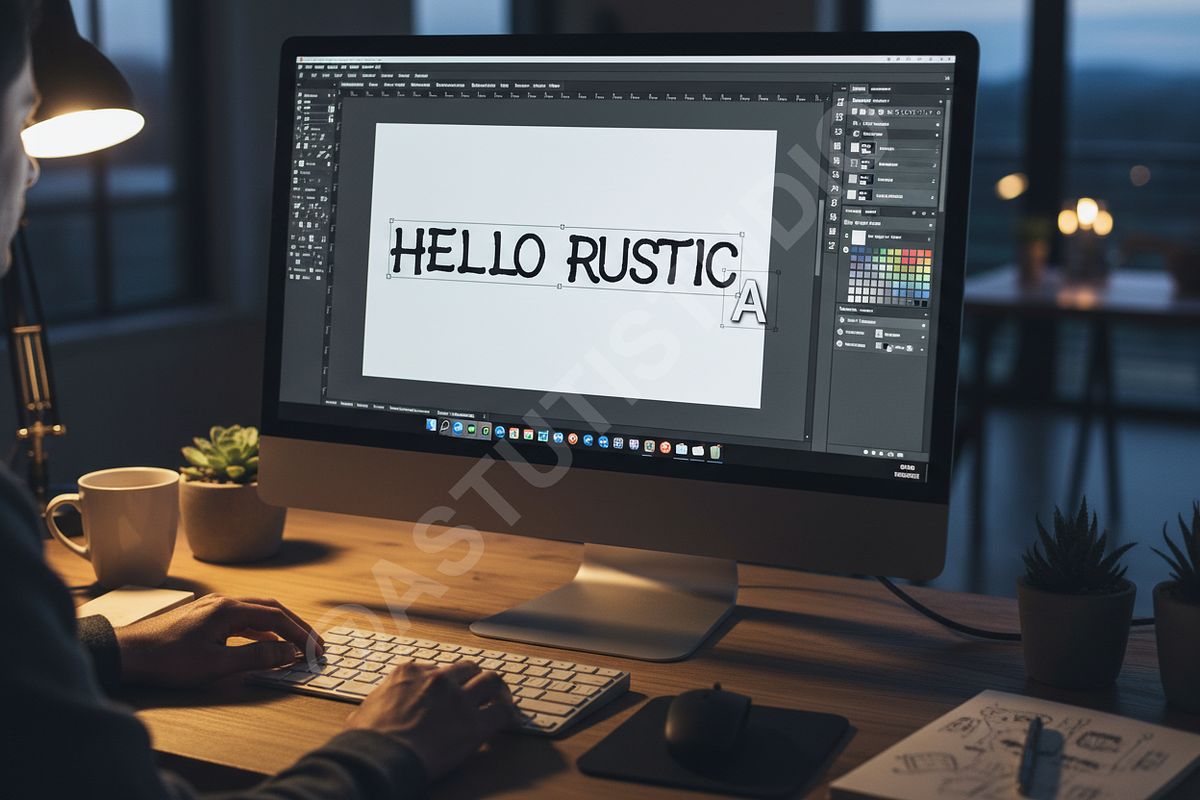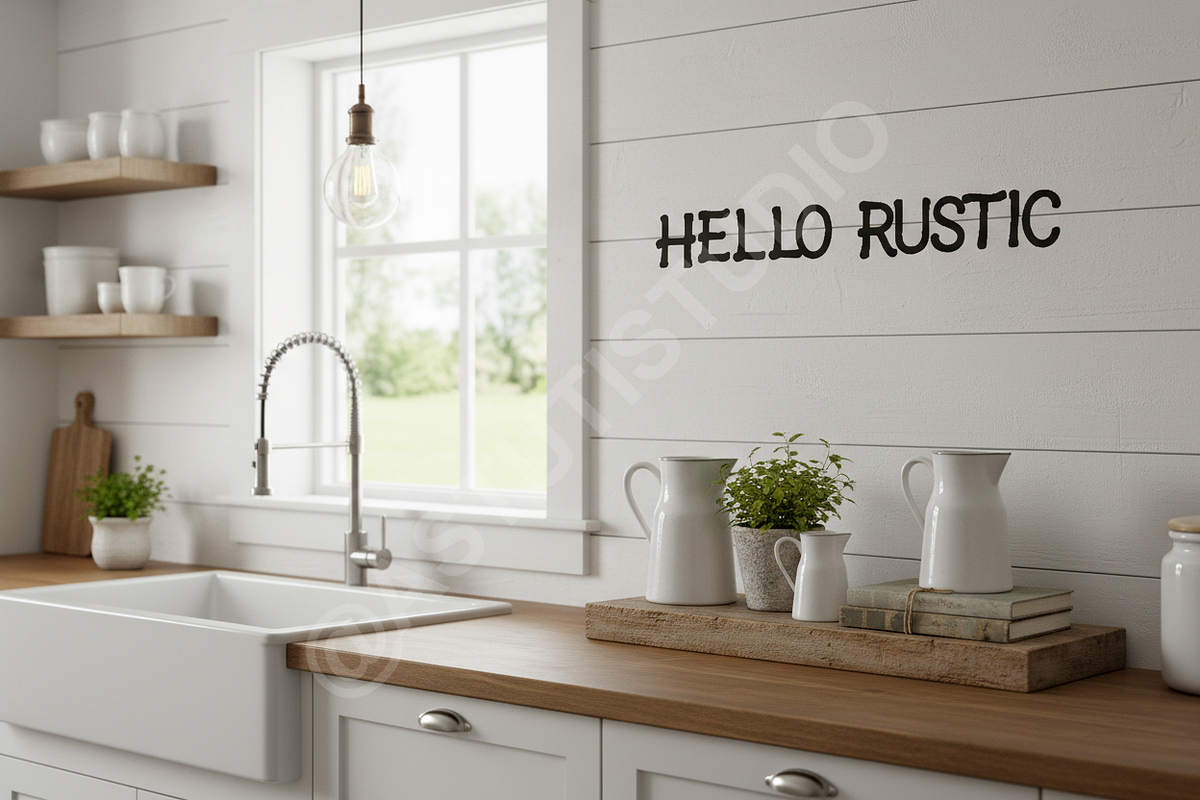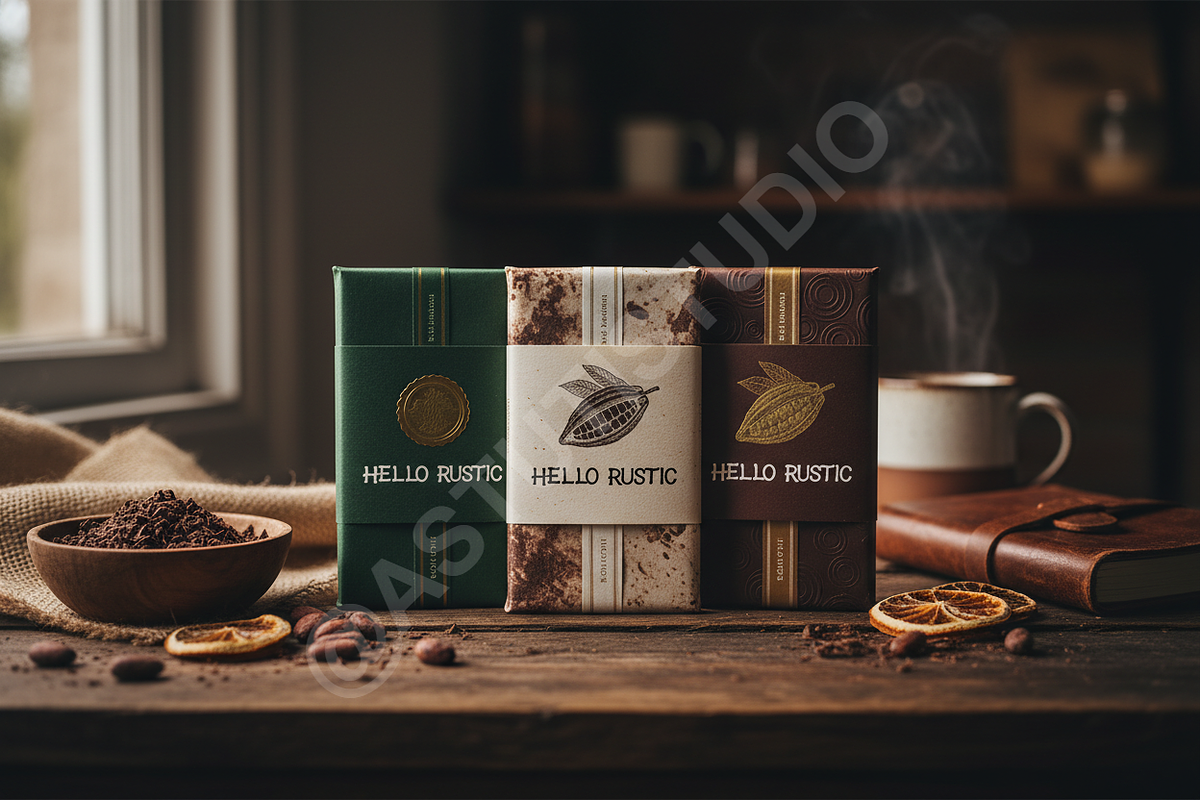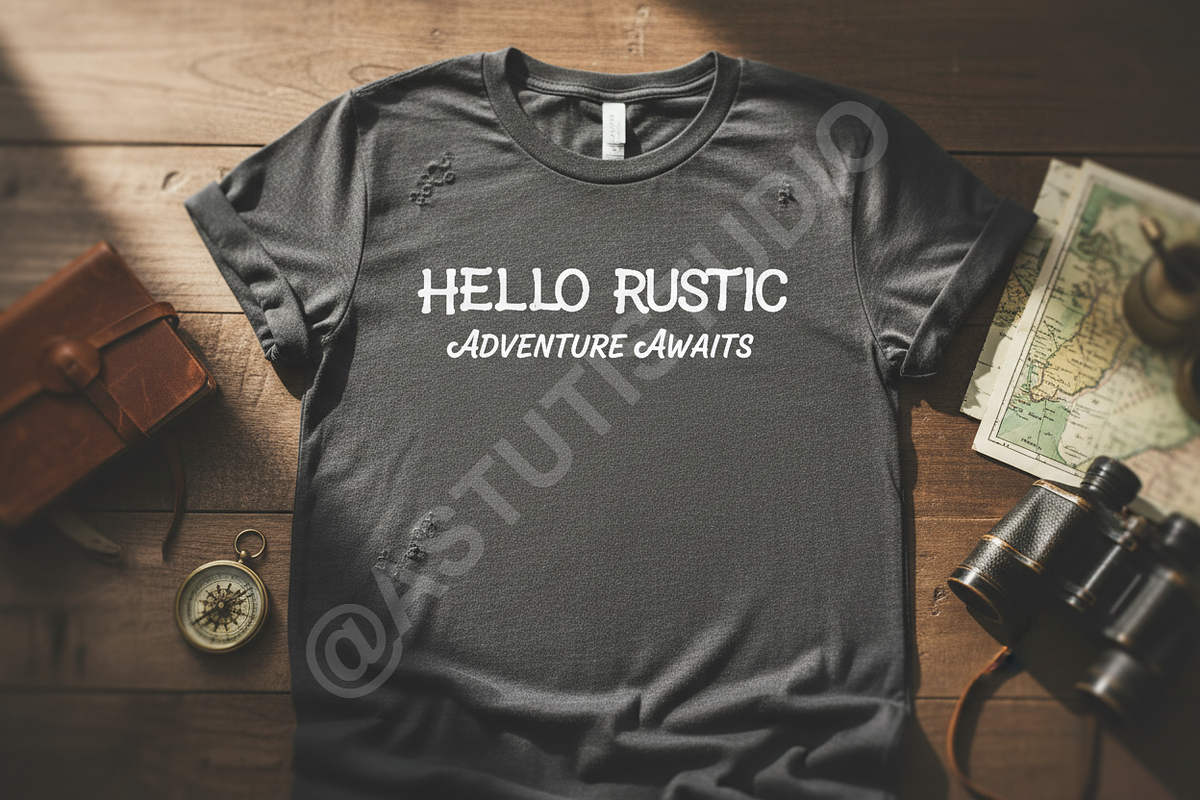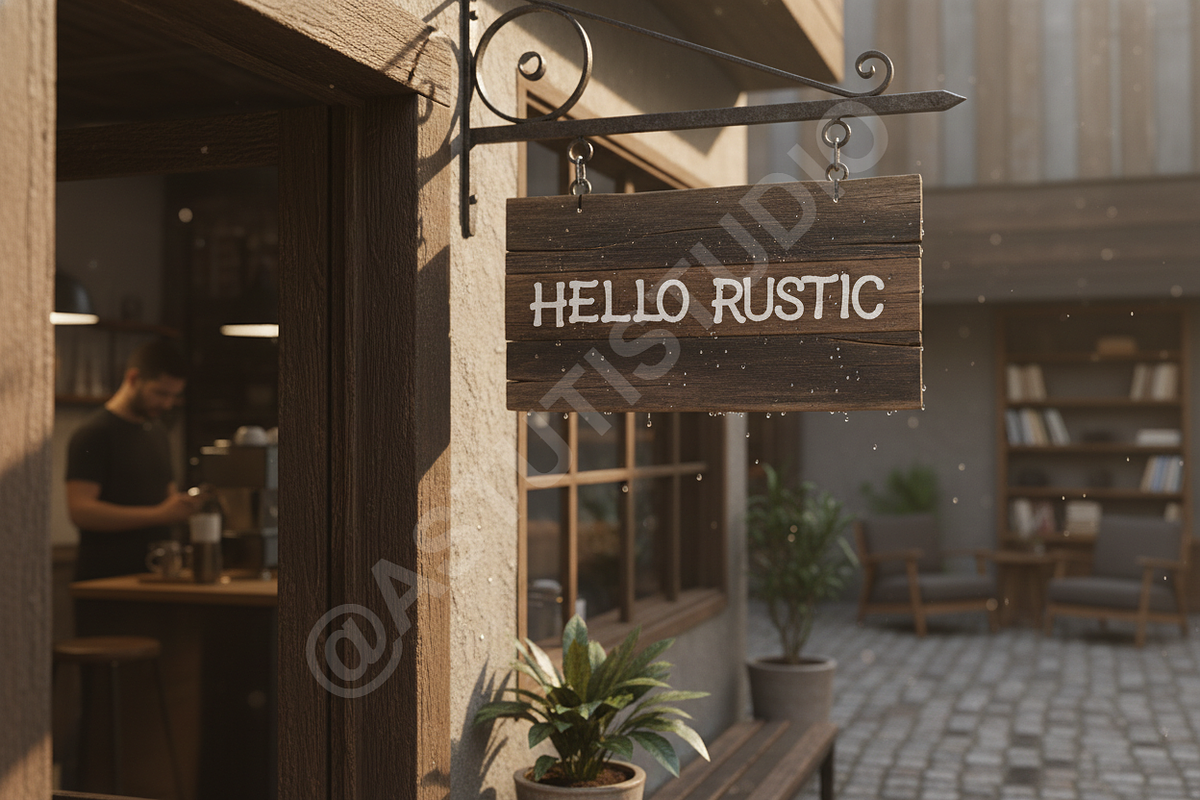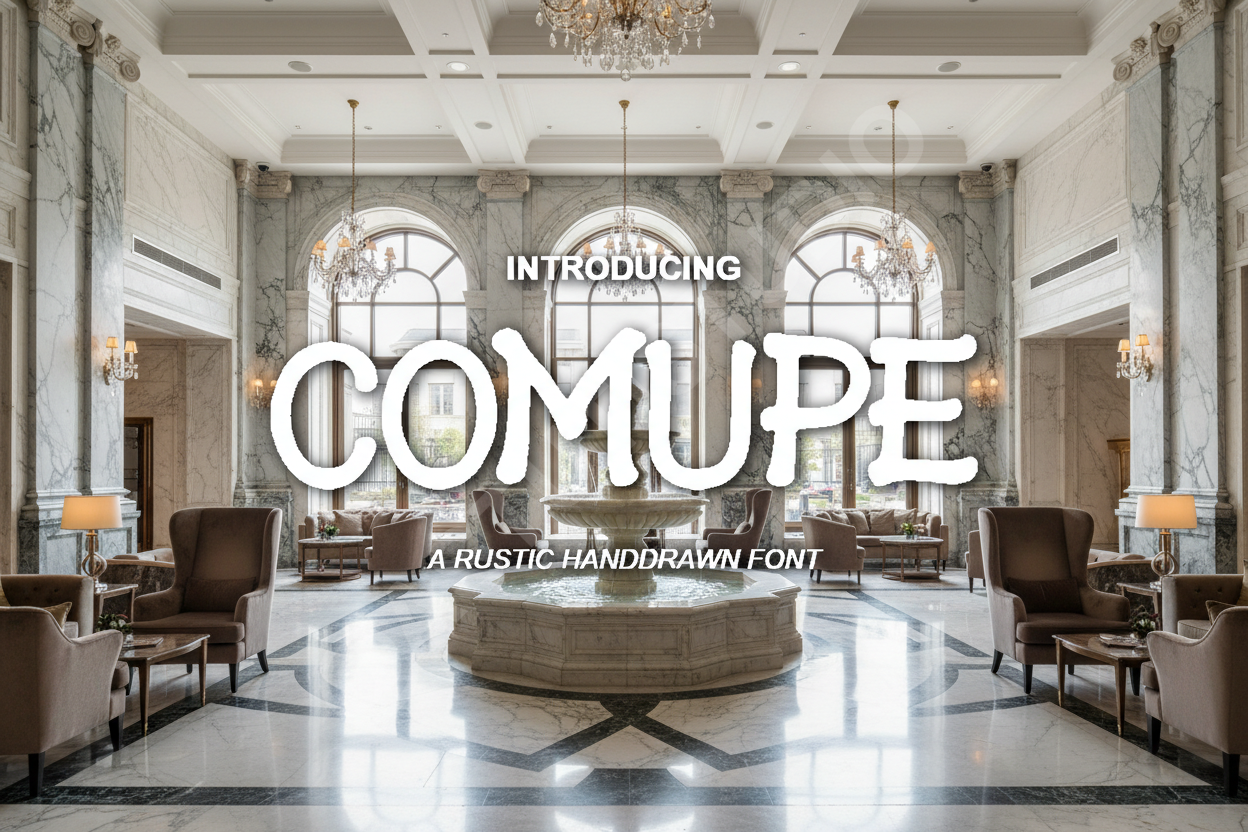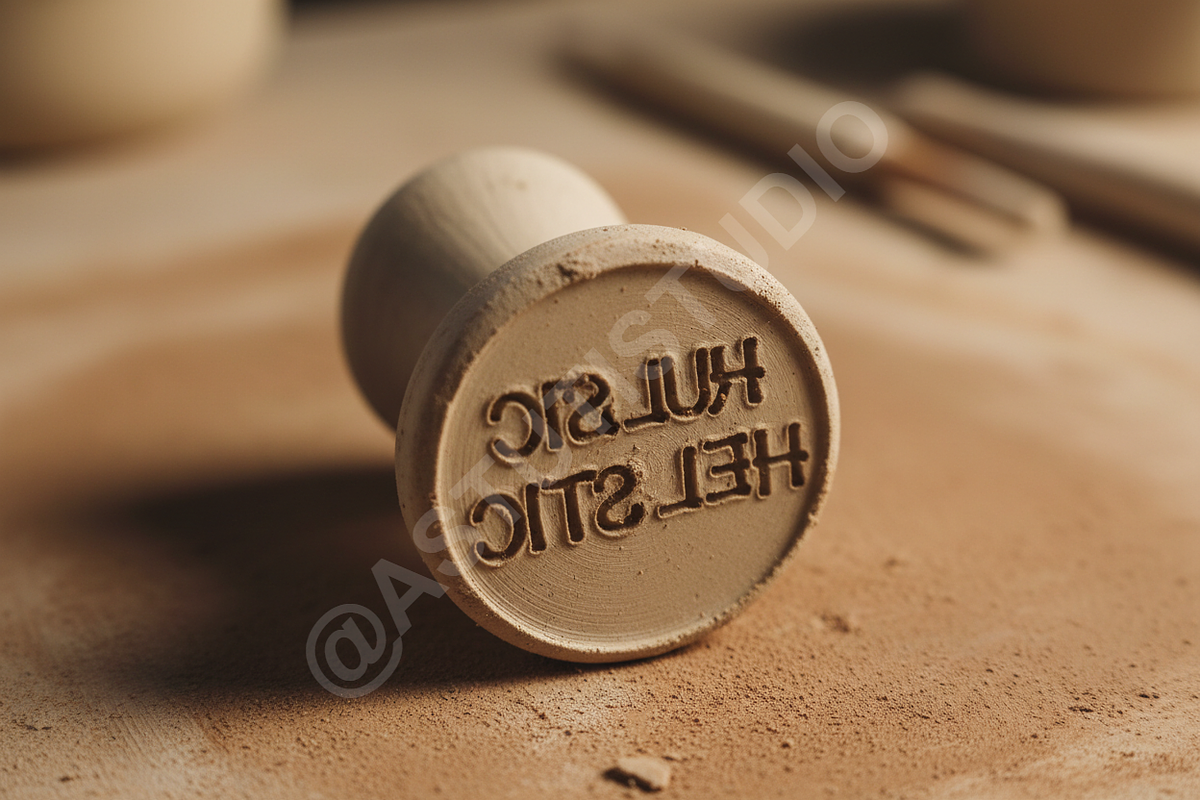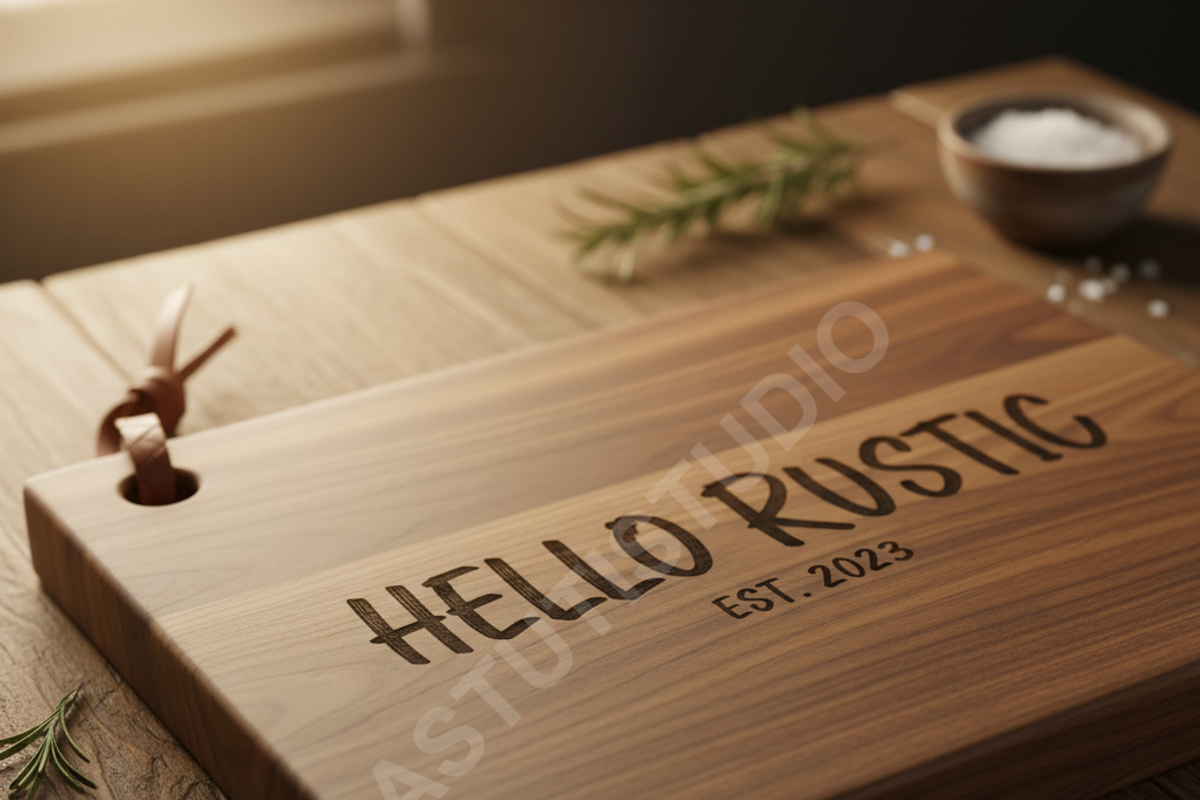
Comupe: High-Contrast Serif Font for
Introducing Comupe, a meticulously crafted high-contrast serif typeface designed to embody sophistication and timeless elegance. Inspired by classic Parisian typography and modern aesthetic minimalism, Comupe offers sharp lines, balanced weight distribution, and a commanding presence. It is the definitive choice for projects demanding an elevated visual language, perfect for luxury branding, upscale editorial design, and elegant social media campaigns.
DESIGN HIGHLIGHTS
- High Contrast Styling: Ensures maximum visual impact and legibility in display settings.
- Extensive Glyph Set: Includes full standard Latin characters and punctuation.
- Professional Kerning: Optimized for seamless, polished text flow in headline and body copy.
- Versatile Application: Ideal for high-end product packaging, magazine layouts, modern website headers, and signature logotypes.
- Full set of Uppercase and Lowercase letters
- Numerals, Punctuation, and Symbols